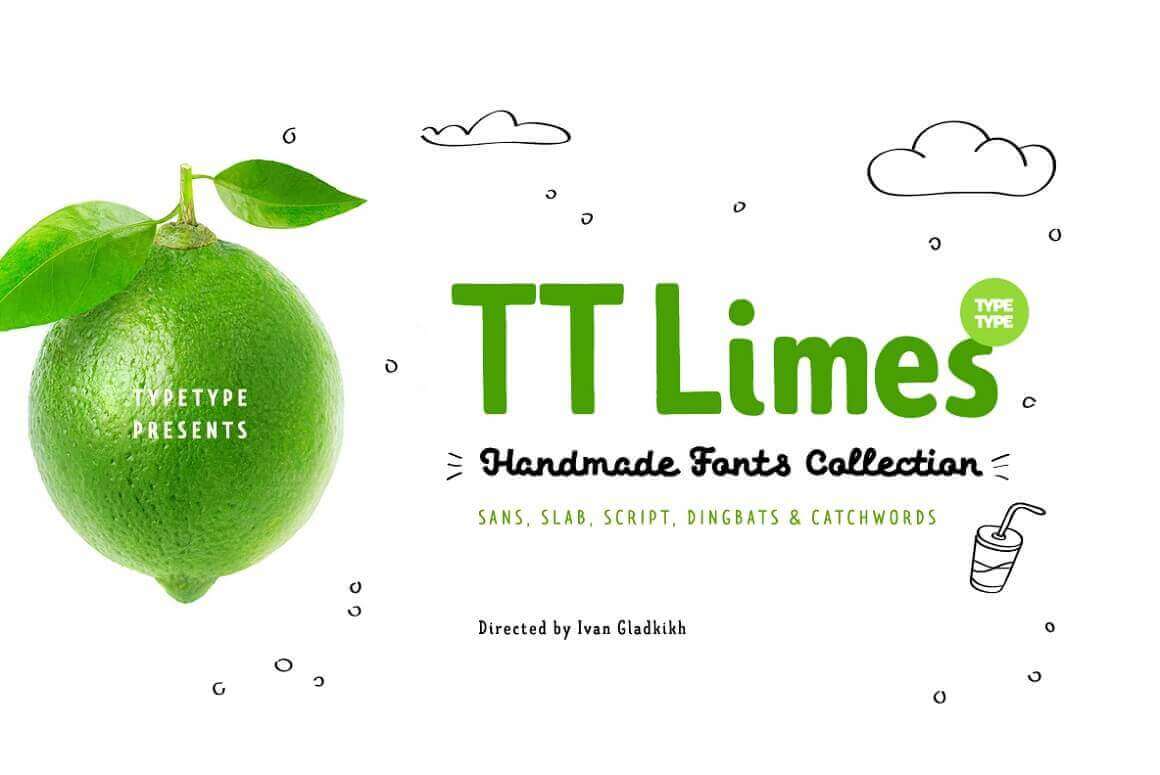
Talk about a freshly squeezed deal! TT Limes is bursting with fontastic flavor. Made up of 5 Fonts with multiple styles for each, you’ll be getting the equivalent of 23 typefaces! Created with watercolor brushes and felt-tip pens, these different fonts work perfectly together to add that splash of spontaneity into the whole handwritten concept.
- 23 unique typefaces – Completely handwritten Font Family.
- 5 Fonts – Limes Sans, Limes Slab, Limes Script, Catchwords and Dingbats.
- Multiple styles from thin to light to bold to italics.
- Loads of OpenType features – contextual alternates, fractions, subscripts, ordinals and more.
- 70+ languages supported.